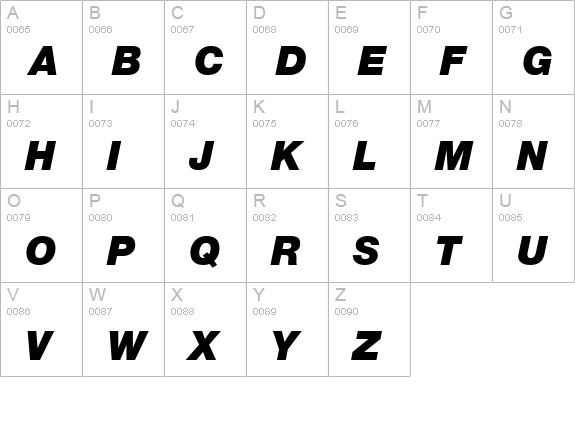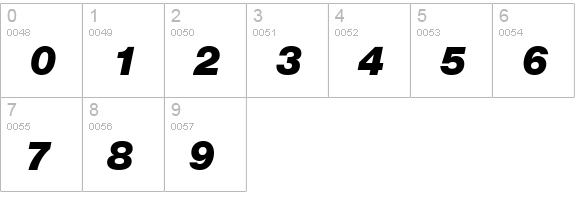
Context Reprise Black SSi Black Italic Font Details
Context Reprise Black SSi Black Italic is a maximum-weight, dramatic, italic variant in the Context typeface family \xE2\x80\x94 well suited to maximum-impact headlines, posters, and packaging.
Context Reprise Black SSi Black Italic font is a bold and elegant typeface that exudes sophistication and modernity. Its sleek and dynamic italic style adds a touch of flair to any design project, making it perfect for headlines, titles, and other attention-grabbing text. The sharp angles and clean lines of this font give it a contemporary edge, while its black weight commands attention with its strong presence. What makes Context Reprise Black SSi Black Italic font even more appealing is that it is freely available to download at FontsMarket.com. Whether you are a designer looking to add a touch of class to your work or a content creator seeking a stylish font for your projects, this versatile typeface is sure to impress. Don't miss out on the opportunity to enhance your designs with the striking beauty of Context Reprise Black SSi Black Italic font. Download it for free today at FontsMarket.com.